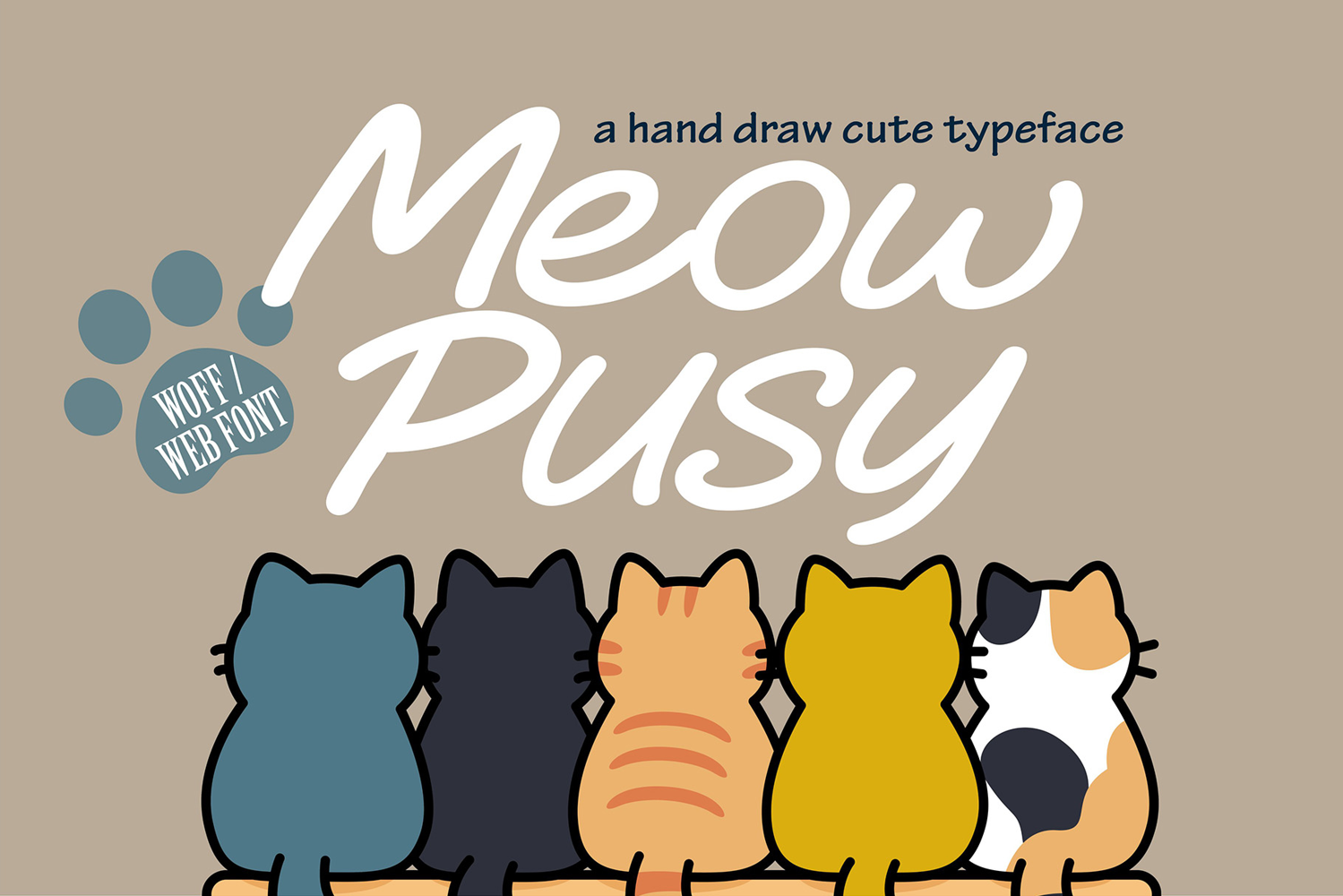
Meow Pusy | Webfont Handwritten Typeface
Meow Pusy is now available as a Webfont, ready to add an adorable and approachable charm to your website or blog. Designed with a smooth and hand-drawn brush style, Meow Pusy makes any digital space feel warm and welcoming. Perfect for online pet shops, kids’ educational platforms, blogs, and playful brand identities, this font adds both personality and legibility across browsers.
Built with love for web designers and digital creatives, Meow Pusy ensures your content stands out while still loading fast and looking sharp. Its cute appeal and friendly style are sure to captivate your audience and enhance your online presence.